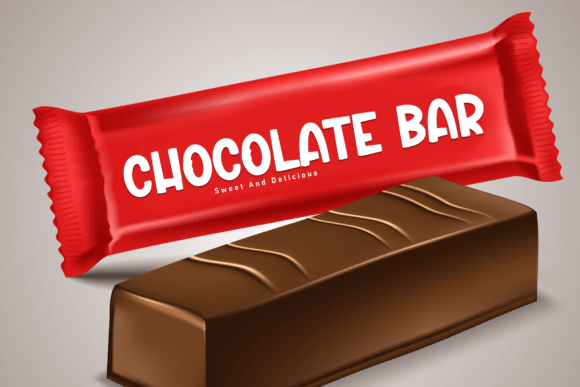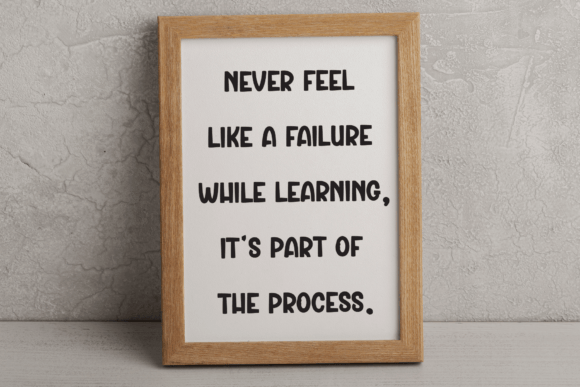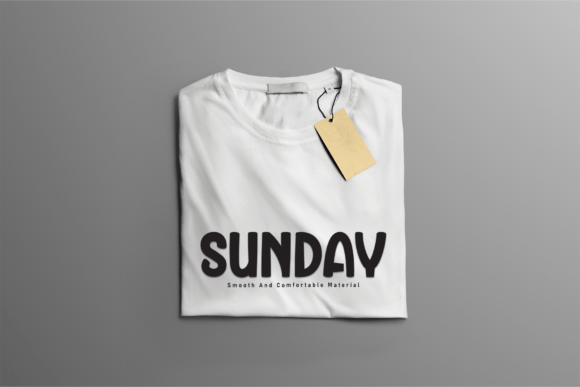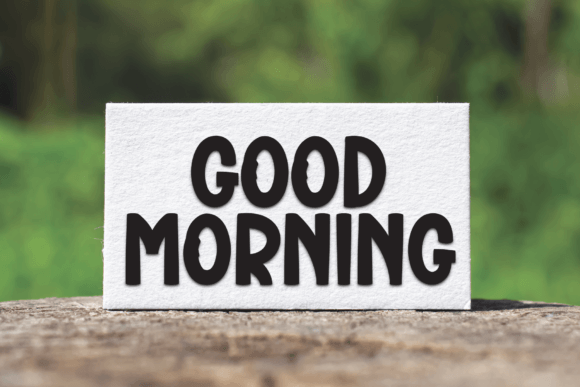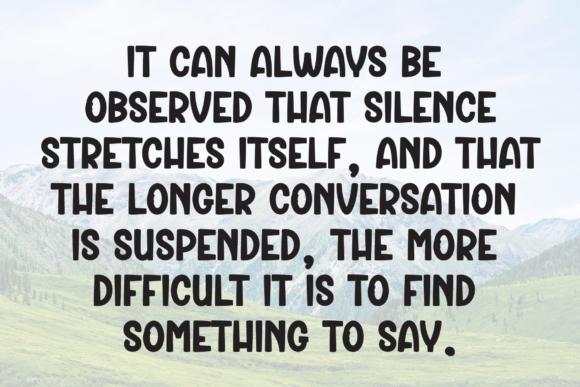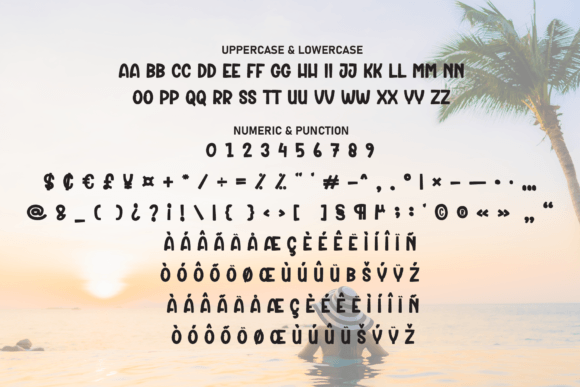
Dream Summer Font: The Perfect Choice for Modern Design
Are you looking for a font that embodies simplicity, readability, and a touch of casual charm? Look no further than the Dream Summer font. This neat and casual sans-serif font is perfect for designers and crafters who want to create modern and approachable designs that stand out from the crowd.
What is Dream Summer Font?
Dream Summer font is a clean and friendly sans-serif font that is designed to be highly legible and versatile. Its clean lines and simple character make it perfect for use in a wide range of design applications, from user interfaces and informative signage to modern branding and advertising.
Key Features of Dream Summer Font
- Clean and Simple Design: Dream Summer font features a clean and simple design that makes it easy to read and understand.
- Highly Legible: The font is designed to be highly legible, making it perfect for use in digital and print applications.
- Versatile: Dream Summer font is versatile and can be used in a wide range of design applications, from user interfaces to branding and advertising.
- Casual and Friendly: The font has a casual and friendly character that makes it perfect for designs that want to convey a sense of approachability and warmth.
Use Cases for Dream Summer Font
Dream Summer font is perfect for a wide range of design applications, including:
- User Interfaces: The font’s clean and simple design makes it perfect for use in user interfaces, such as mobile apps and websites.
- Informative Signage: Dream Summer font is highly legible and can be used in informative signage, such as billboards, posters, and flyers.
- Modern Branding: The font’s casual and friendly character makes it perfect for use in modern branding, such as logos, business cards, and letterheads.
- Digital and Print Applications: Dream Summer font can be used in a wide range of digital and print applications, including social media graphics, brochures, and magazines.
Benefits of Using Dream Summer Font
Using Dream Summer font in your designs offers a range of benefits, including:
- Improved Readability: The font’s clean and simple design makes it easy to read and understand.
- Enhanced Approachability: The font’s casual and friendly character makes it perfect for designs that want to convey a sense of approachability and warmth.
- Increased Versatility: Dream Summer font can be used in a wide range of design applications, making it a versatile and valuable addition to any designer’s toolkit.
Tips for Using Dream Summer Font
Here are some tips for using Dream Summer font in your designs:
- Use it in Large and Small Sizes: Dream Summer font is highly legible and can be used in both large and small sizes.
- Pair it with Other Fonts: The font can be paired with other fonts to create a unique and visually appealing design.
- Experiment with Colors and Textures: Dream Summer font can be used with a range of colors and textures to create a design that stands out from the crowd.
Dream Summer font is a versatile and highly legible sans-serif font that is perfect for designers and crafters who want to create modern and approachable designs. Its clean lines, friendly character, and casual charm make it perfect for use in a wide range of design applications, from user interfaces to branding and advertising. Whether you’re working on a digital or print project, Dream Summer font is a great choice for any design that wants to stand out from the crowd.